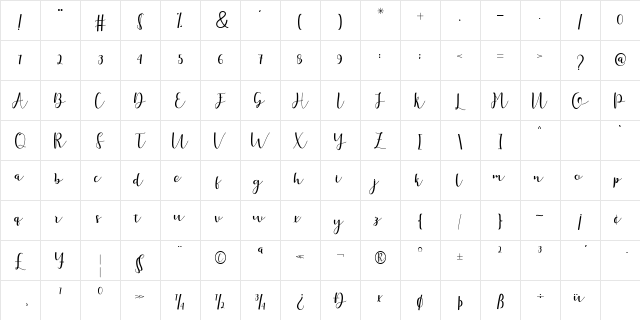
Arabella Script Regular
Design Context for Arabella Script Typeface
Arabella Script brings a calligraphic fluidity to the page — its connecting strokes and expressive curves give it an unmistakably human quality.
Font Pairing: Combine Arabella Script with a simple geometric sans for maximum contrast — the tension between flowing curves and clean structure is a classic typographic pairing.
Pro Tip: Pair Arabella Script with a clean sans-serif for supporting text. The contrast between fluid script and geometric structure creates an elegant typographic hierarchy.